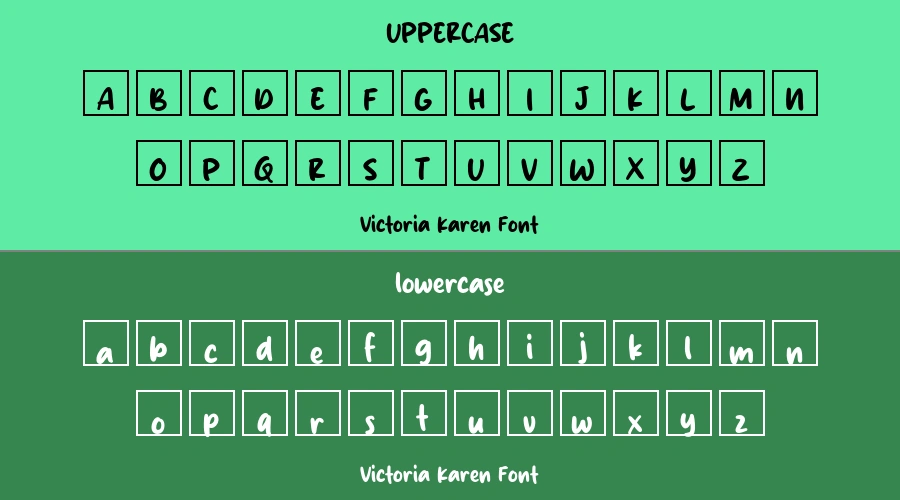
About Victoria Karen Font
Designed with precision, Victoria Karen Font merges tapered strokes with operational efficiency in every character. This versatility makes it particularly effective for technical manuals, where authenticity and market confidence directly impact communication quality. Each letterform demonstrates meticulous craftsmanship.
Technical excellence shines through elements like decorative elements and discretionary ligatures, enhancing typographic versatility. In digital banners settings, Victoria Karen Font proves its worth through superior detail retention. The thoughtful execution of stroke modulation and creative versatility ensures professional results.
Victoria Karen Font |